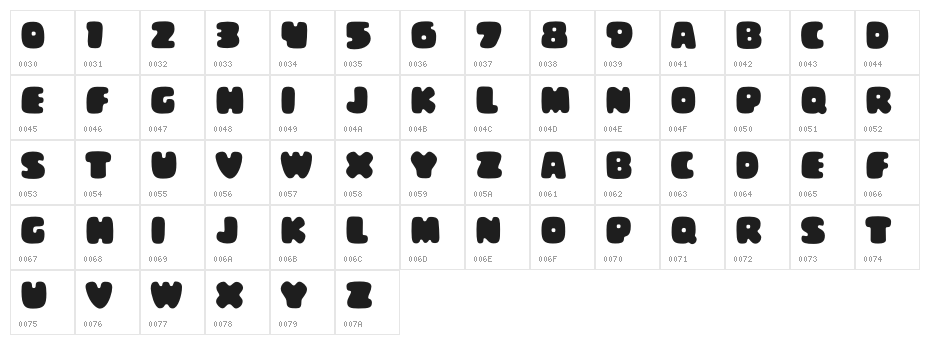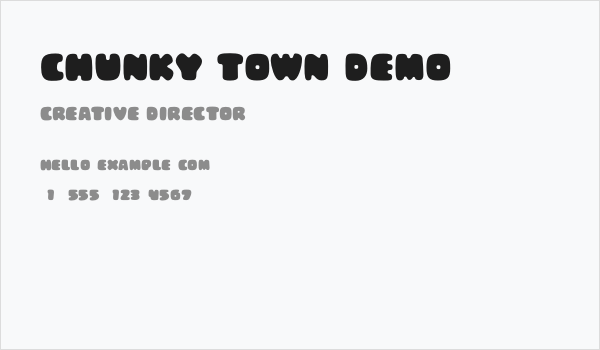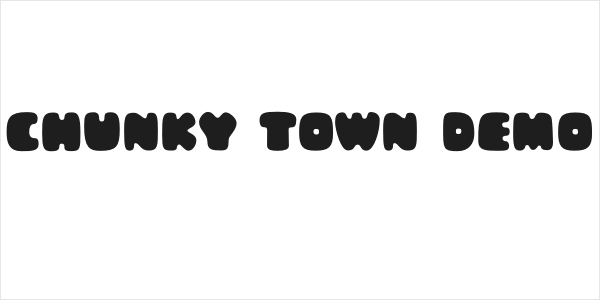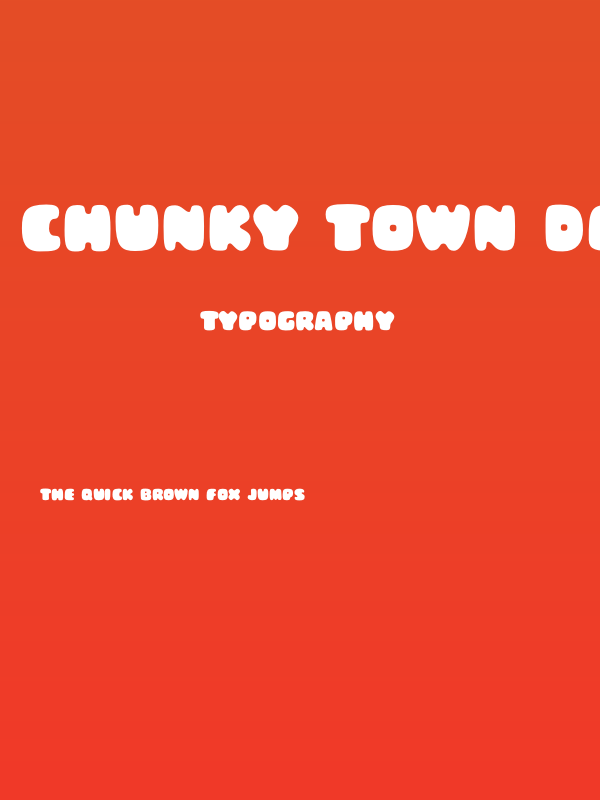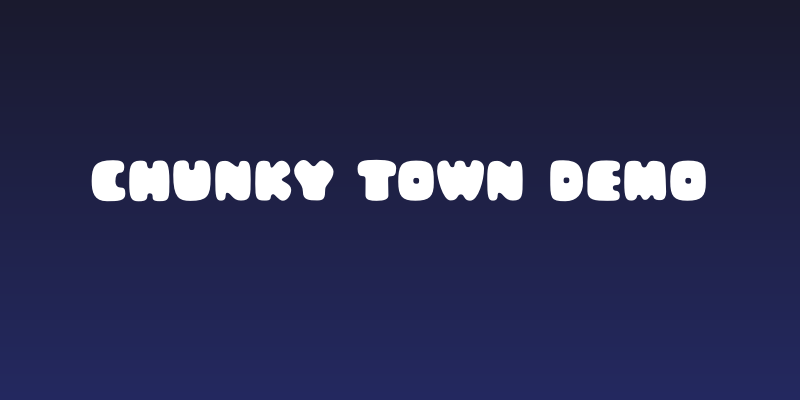
Chunky Town Demo Font
Chunky Town Demo Description
This font features a bold, playful design with rounded edges and a chunky appearance. The letters are uniformly thick, creating a sense of fun and approachability. The uppercase and lowercase characters maintain a consistent style, with a slightly exaggerated, cartoonish look. The numbers follow the same design principles, ensuring a cohesive appearance across all characters. The font's overall style is reminiscent of retro or vintage designs, making it suitable for projects that require a touch of nostalgia or whimsy. Its boldness ensures that it stands out, making it ideal for headlines or titles.
| Overall Style | Retro, Playful |
| Proposed Projects | Ideal for children's books, playful branding, retro-themed posters, and eye-catching headlines. |